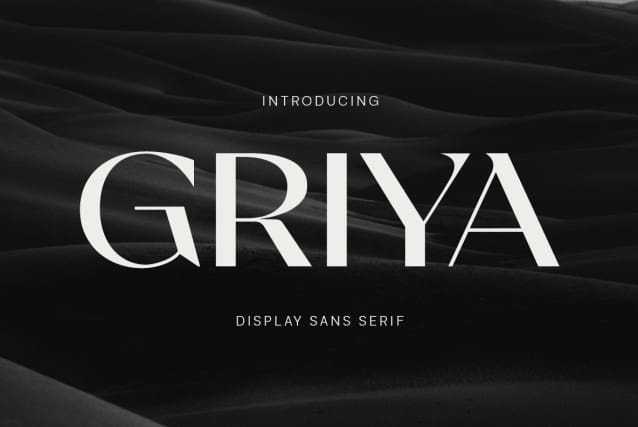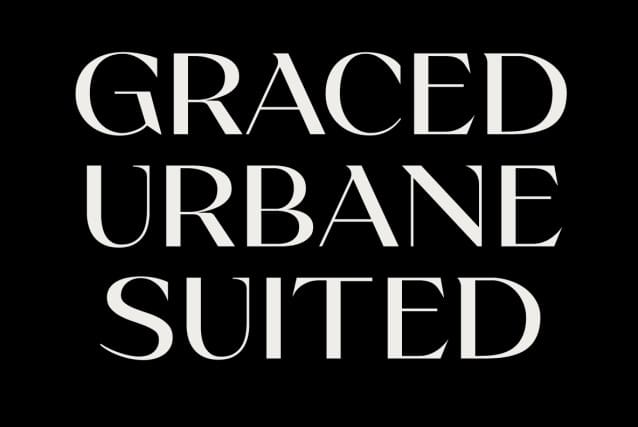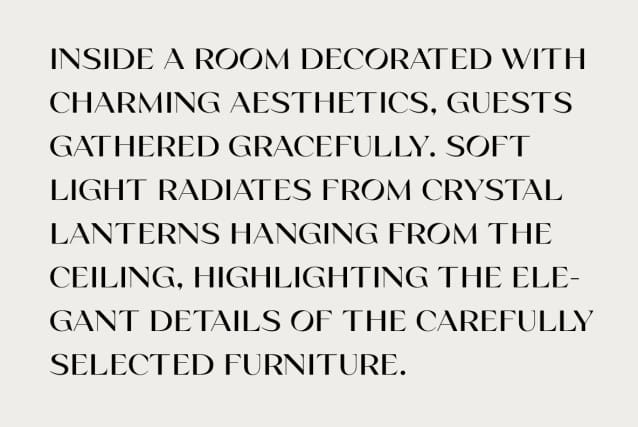
Griya Display Font
Griya Display Font is a charming and versatile font, created to meet a variety of design needs. With an understated yet classy style, this font brings out clarity and elegance in each character.
GriyaDisplay is the right choice for designers who want a font that can adapt to various design needs without losing its charm and quality.